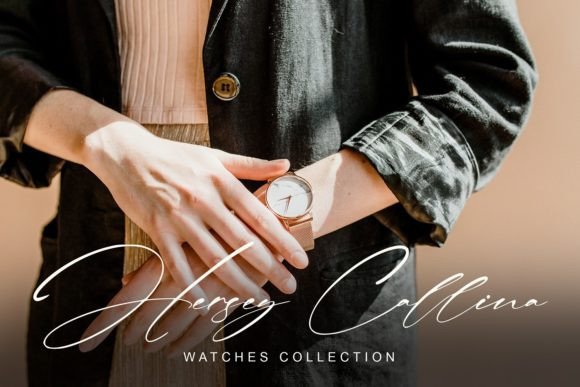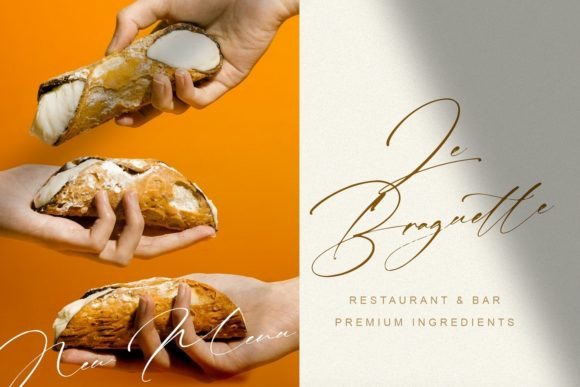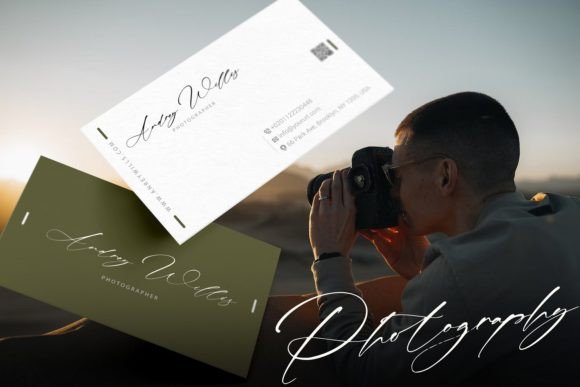
Introduction to Fathony King Font
Fathony King is a delicate, elegant, and flowing handwritten signature script font.
It has beautiful and well-balanced characters and as a result, it matches a wide pool of designs Add it to your most creative ideas and notice how it makes them come alive.
Fathony King Font offers exceptional quality and versatility, making it a valuable addition to your design toolkit. Whether you’re creating for personal projects or commercial use, Fathony King Font delivers professional results.